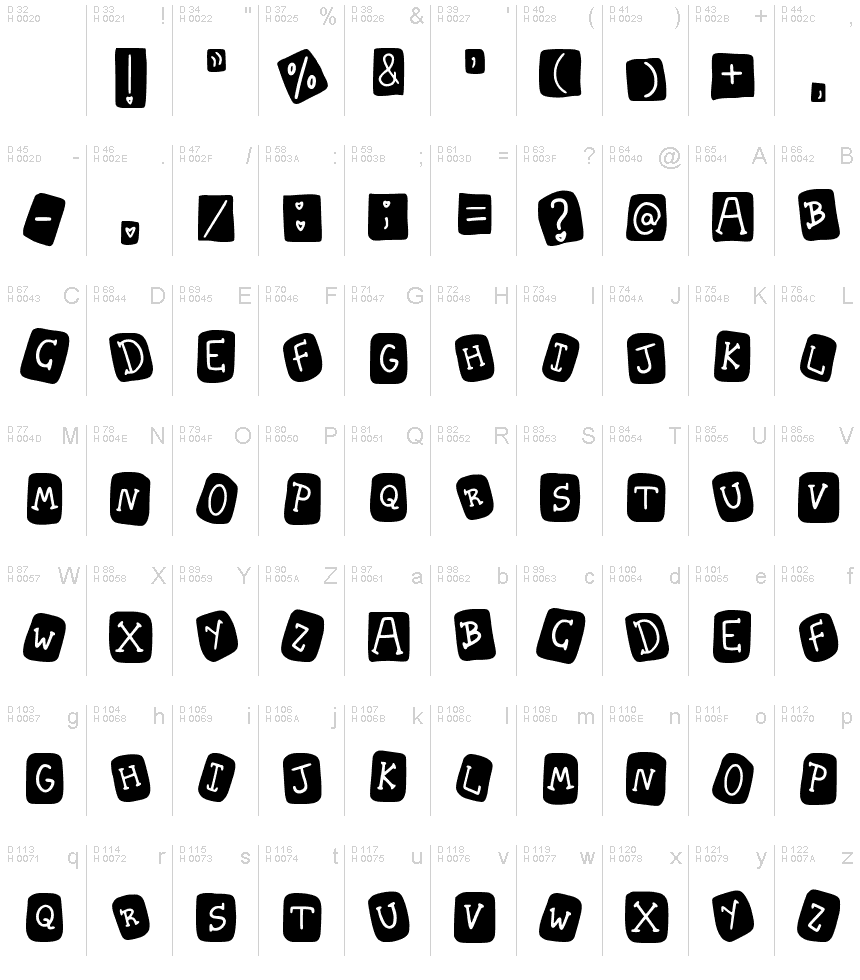
Trizmaiuscula Regular
Trizmaiuscula is a stunning decorative font designed by Trizlustrar that makes any project stand out. Its semi-light weight and unique style make it suitable for a wide range of creative projects, from wedding invitations to book covers. Its intricate details and elegant curves add a touch of sophistication to any design. Whether you're creating branding materials or designing a poster for an event, Trizmaiuscula is the perfect choice for those who want to make a statement with their typography. Its versatility makes it ideal for both digital and print projects, making it an essential addition to any designer's toolkit.